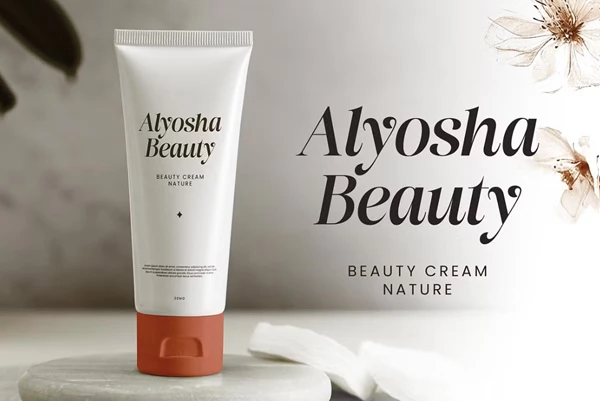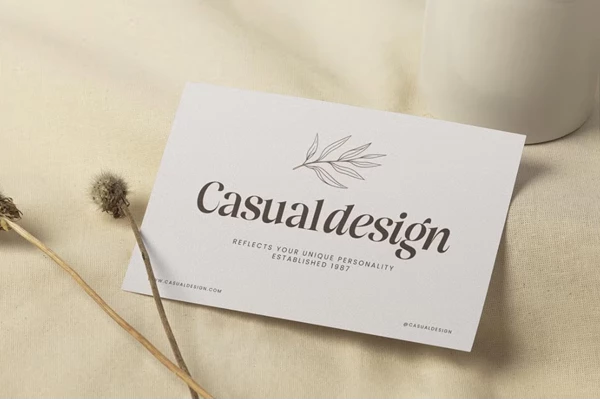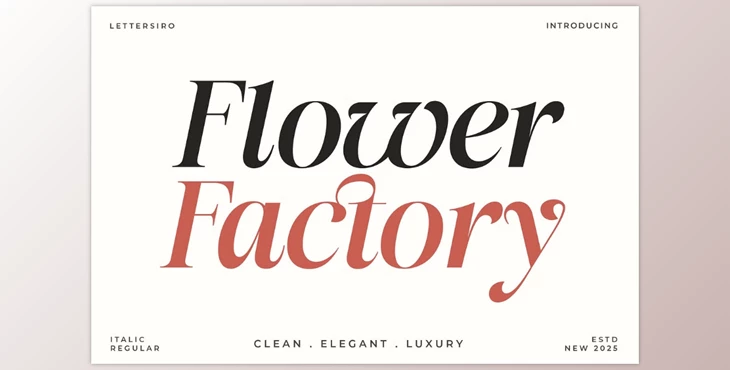
Flower Factory Stylish Modern Serif Font:
Flower Factory is a contemporary, modern, artsy serif. Its curves and contrast are the visually enticing, reassuring, and sophisticated embellishments of any design. This font is clean yet expressive enough to accompany any branding project that needs personality and professionalism.
Flower Factory comes in Regular and Italic and is appropriate for any project needing a creative touch—titles, logos, packaging, quotes, posters. Every necessary character creates an exclusive typographic style that's both modern and classic. The overall appearance suggests an exclusivity and sophisticated nature for all print and digital projects.
- Elegant and Modern Appearance—High amounts of contrast with smooth curves allow for legibility but impact as well.
- Two Variations Included—Regular and Italic options included for versatile application.
- Full Character Set—Uppercase and lowercase letters, numerals, punctuation, and symbols included.
- OpenType Options—Includes ligatures and stylistic alternates.
- Multilingual—Supports at least Western European language sets.
Flower Factory elevates the traditional, elegant connotation of serif for those designers looking to make a powerful typographic statement with class.